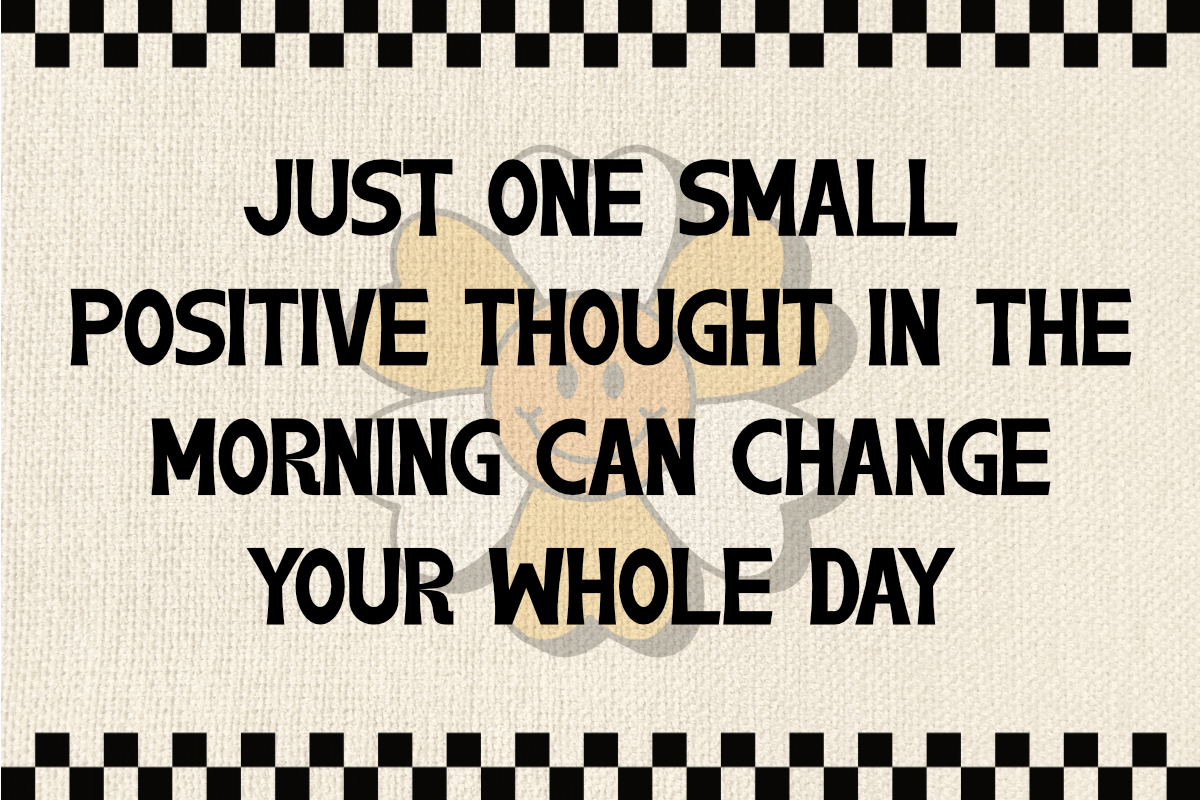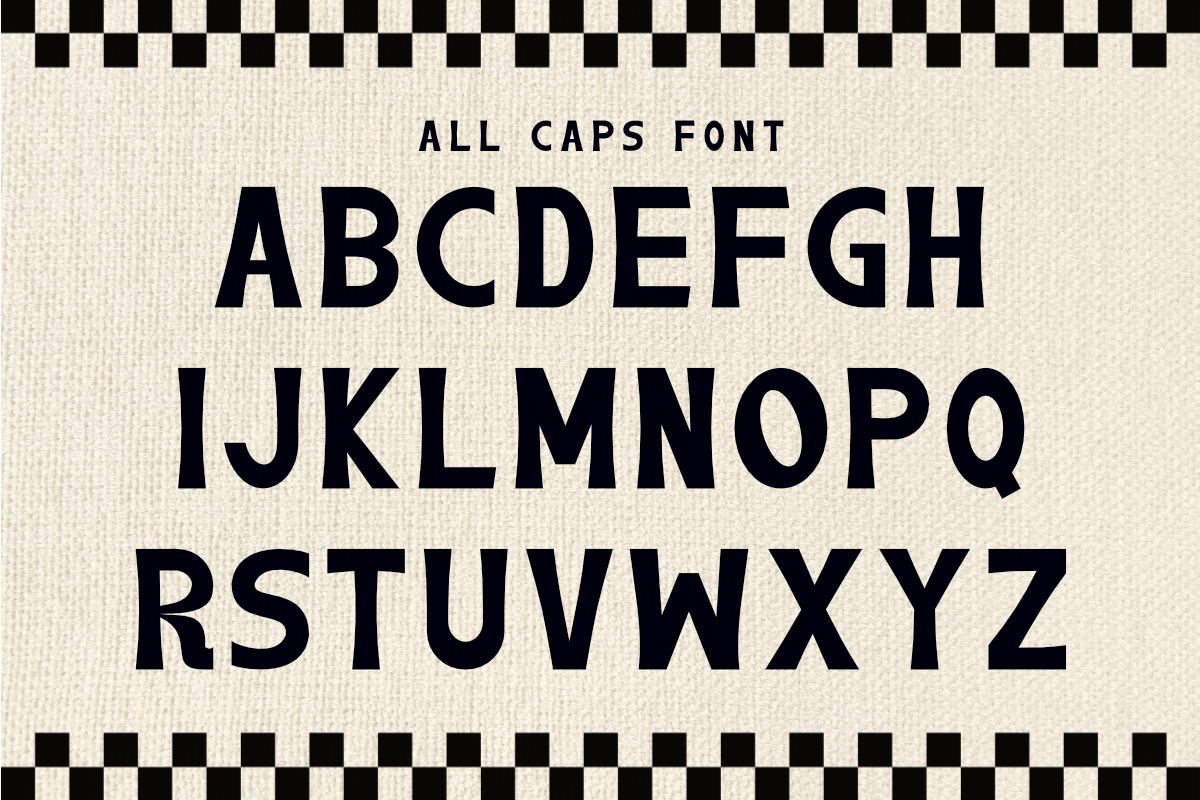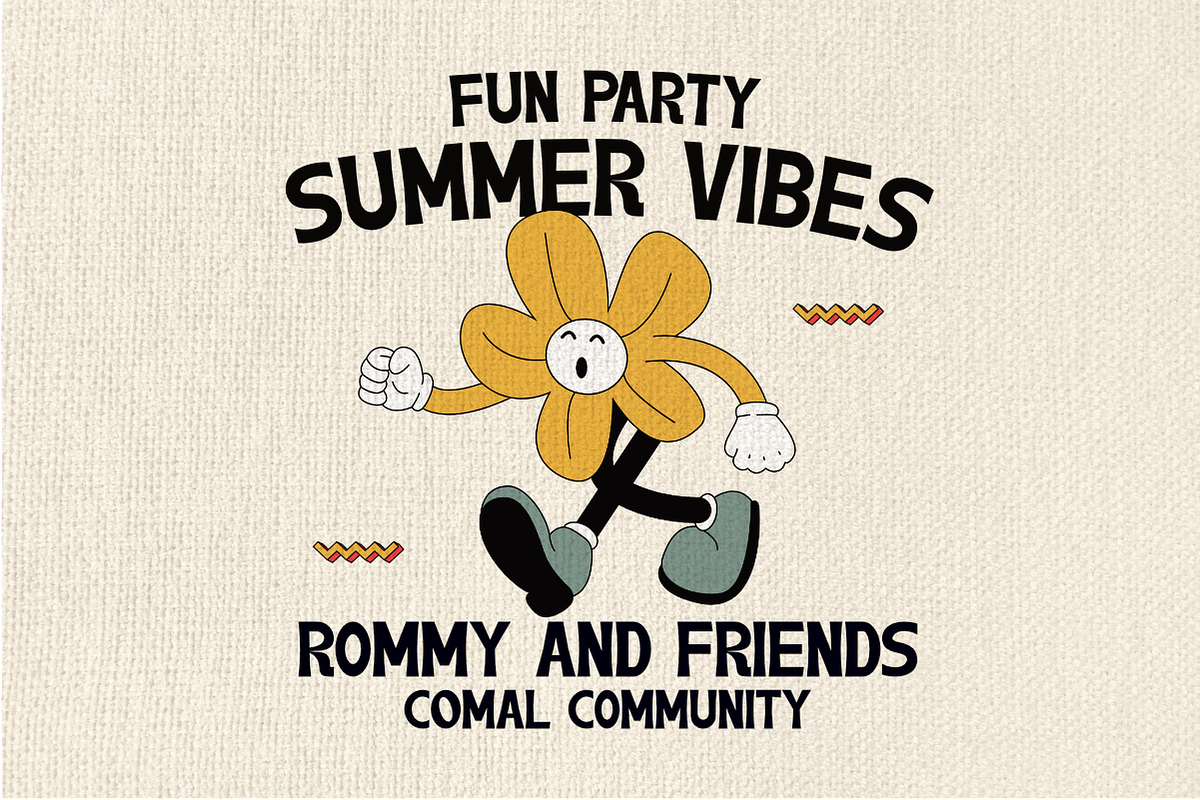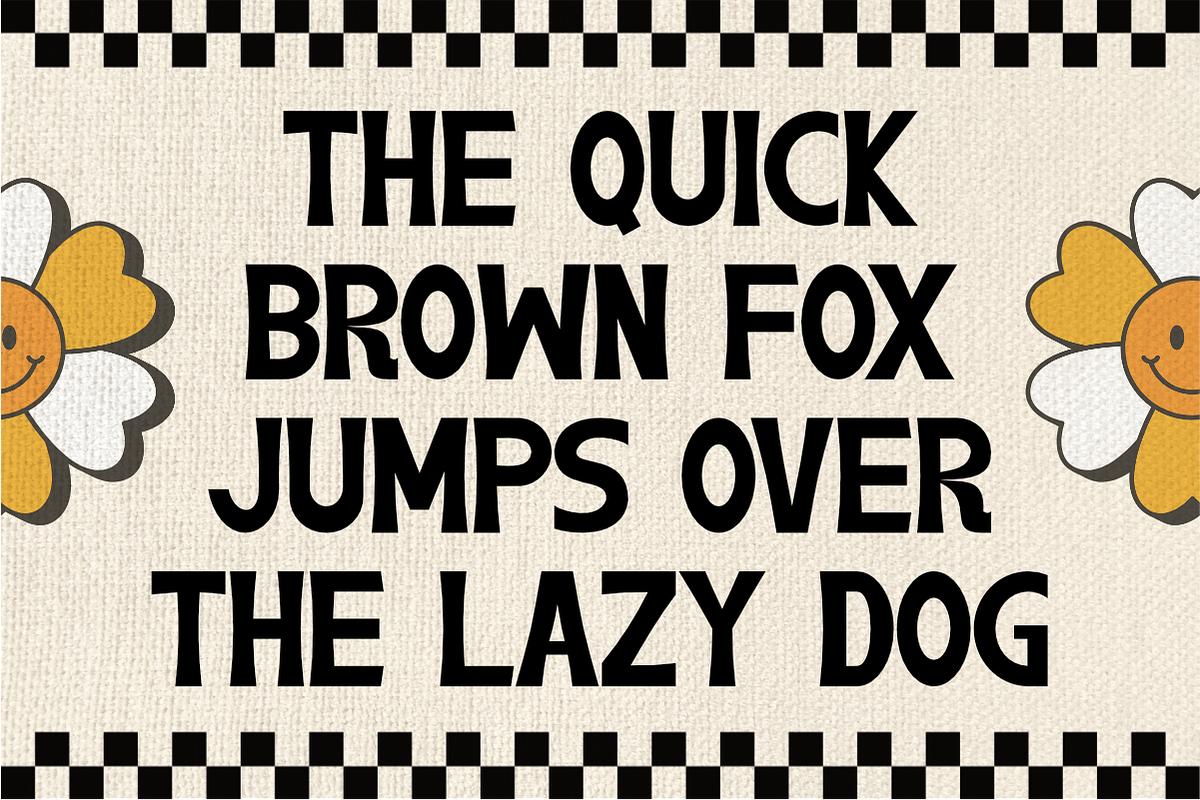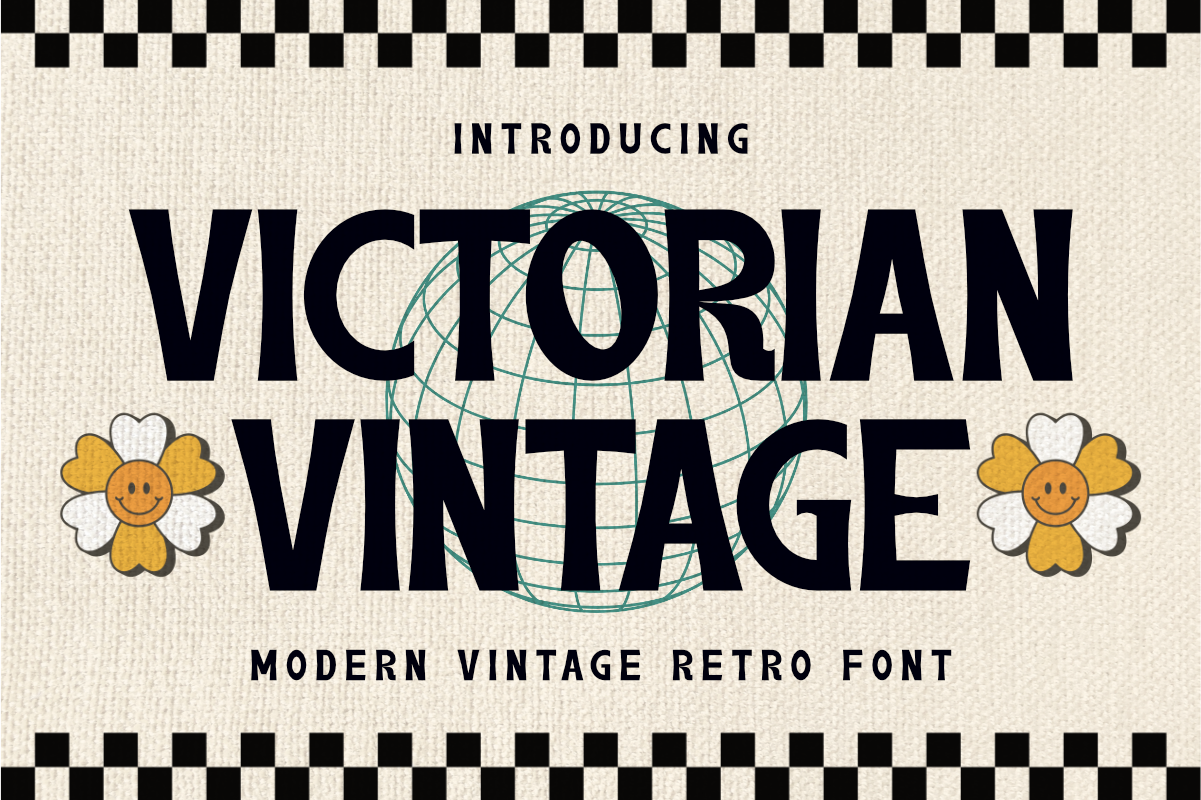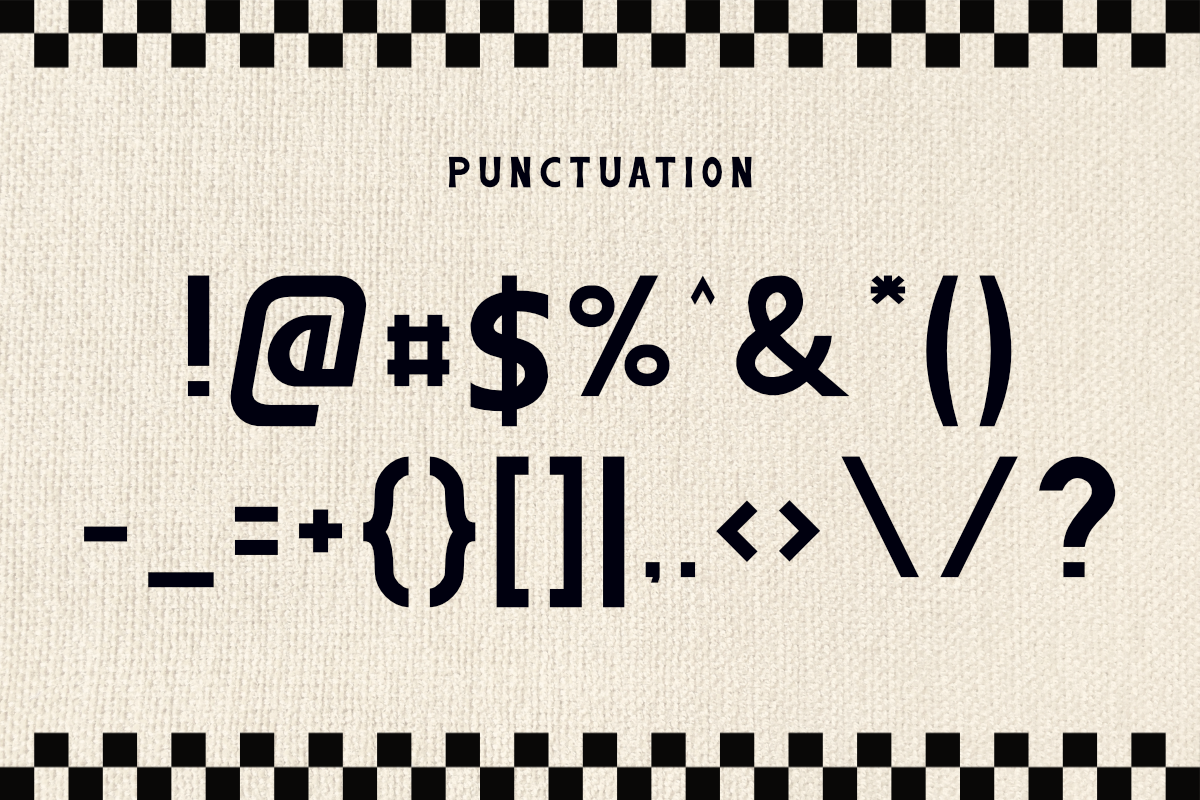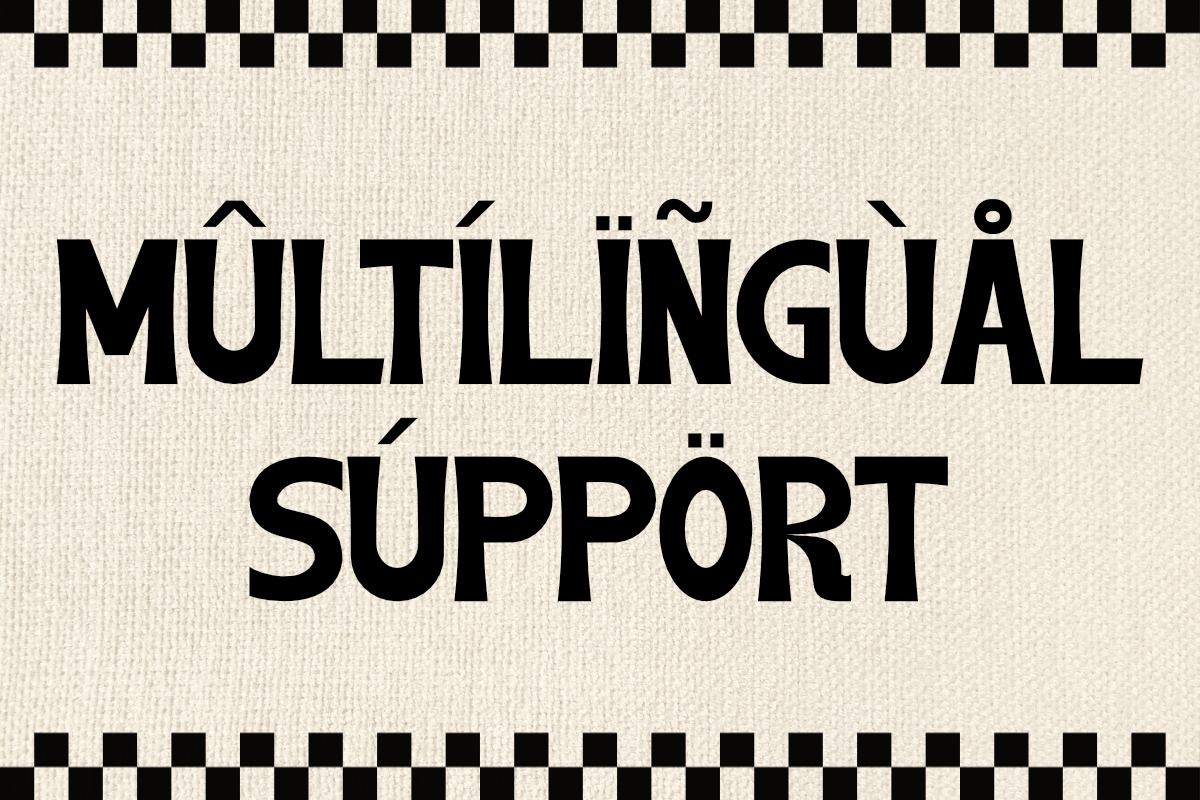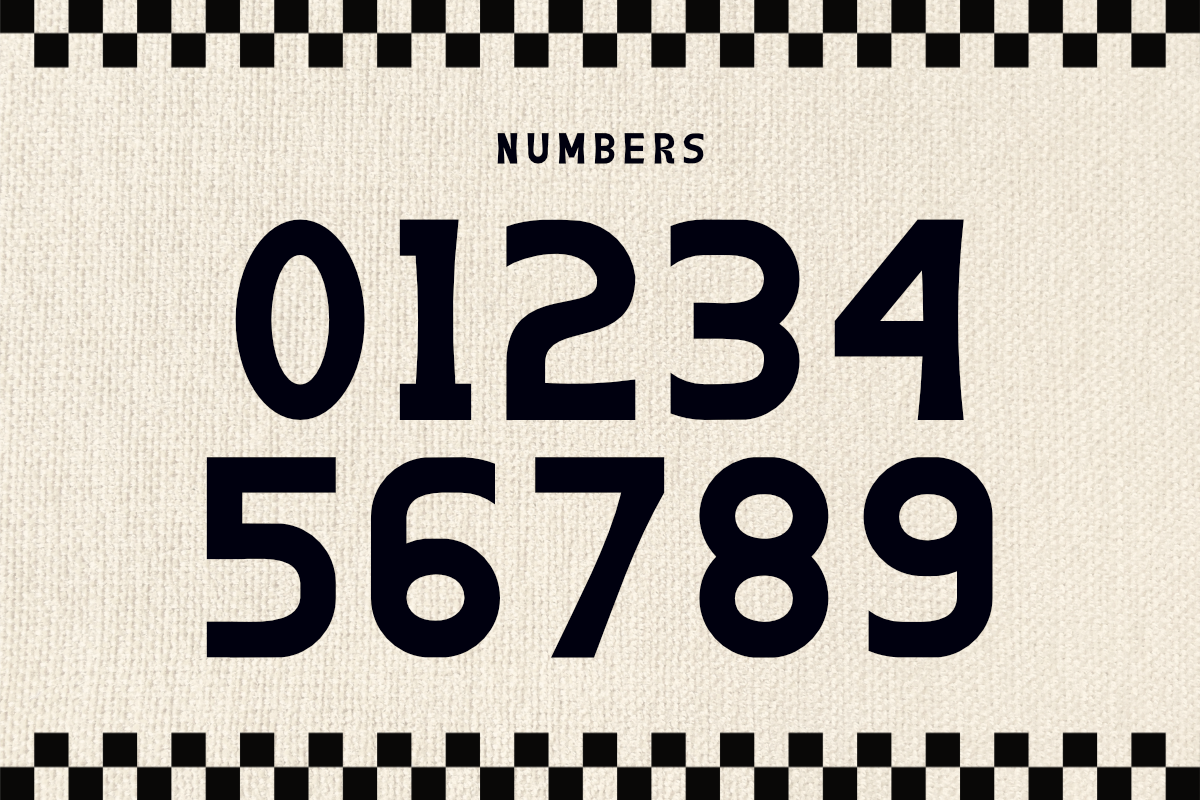
Victorian Vintage - Retro Font
Victorian Vintage is a modern and vintage retro serif font. font inspired by vintage and retro style branding. fonts that have multilingual support characters. just the right retro touch so this font is perfect for a variety of purposes. such as branding, business, logo, identity, company, graphic design, and many other creative ideas.